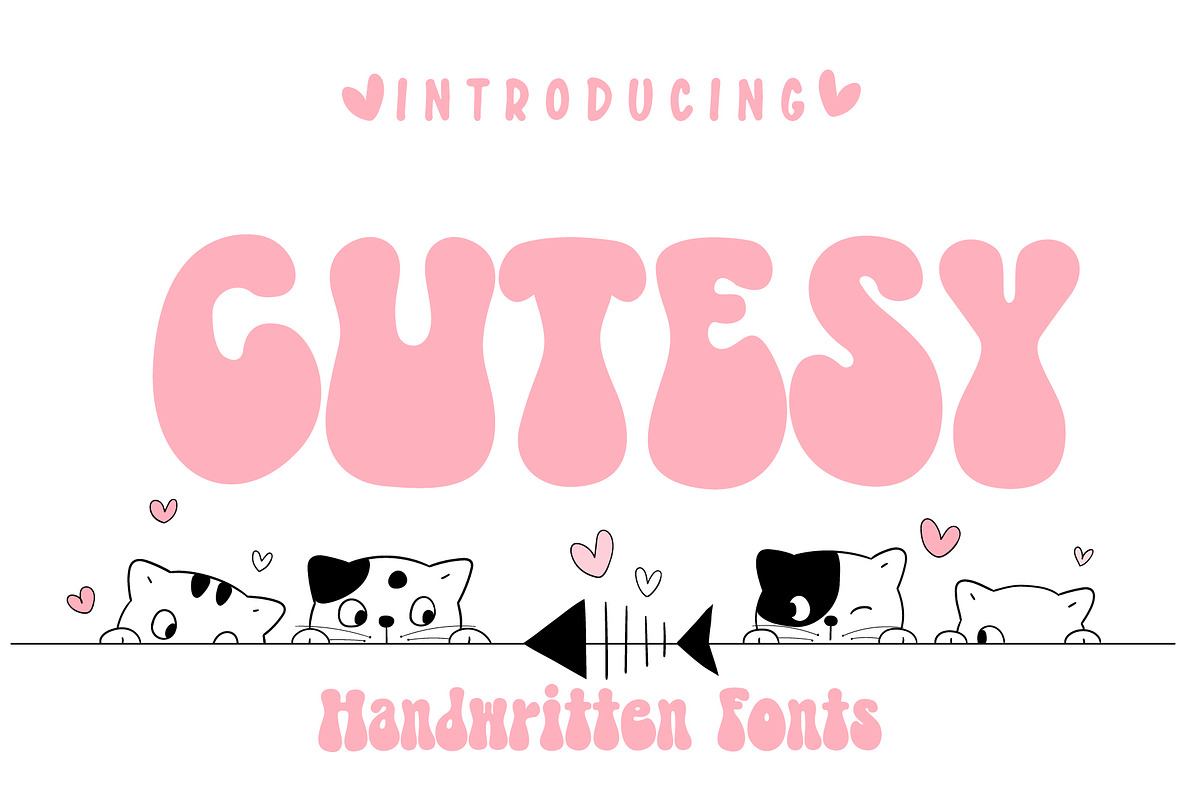
Please note that you must purchase these fonts for commercial use. You can download Cutesy Fonts for free, strictly for personal testing purposes only. Cutesy Fonts is a playful and heartwarming collection of adorable typefaces designed to bring joy, friendliness, and charm to your creative projects. With bubbly curves, soft lines, and sweet personality, Cutesy Fonts Free Download is perfect for kids’ books, birthday invitations, baby shower cards, stickers, apparel, crafts, and cheerful social media content.
These fonts typically include uppercase and lowercase letters, numerals, punctuation, and multilingual support. Some may come with cute extras like hearts, stars, or doodles to add even more fun to your designs.
Whether you're designing for little ones or simply want to spread positivity through your visuals, Cutesy Fonts bring warmth, creativity, and smiles to every word.